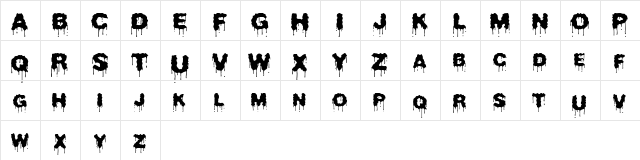
Beurk Regular
Design Context for Beurk Typeface
Beurk is a composed and adaptable typeface that performs quietly and consistently across a wide range of design contexts.